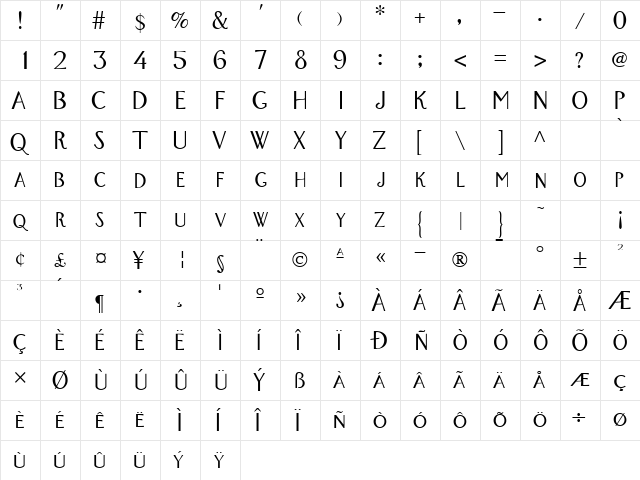
WandroSCapsSSK Regular
Design Context for WandroSCapsSSK Typeface
WandroSCapsSSK is a composed and adaptable typeface that performs quietly and consistently across a wide range of design contexts.